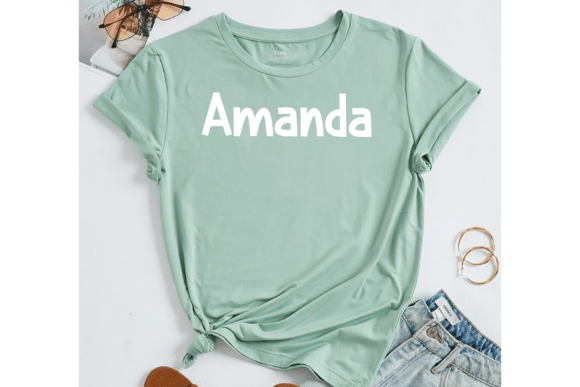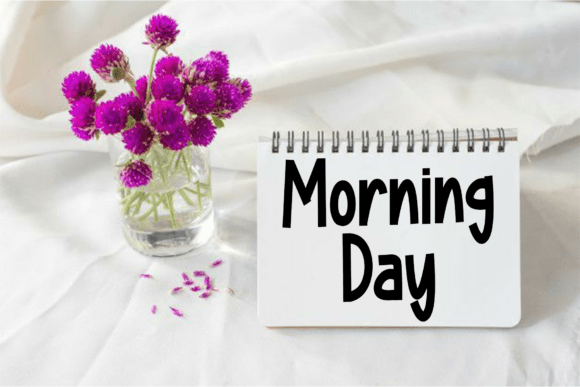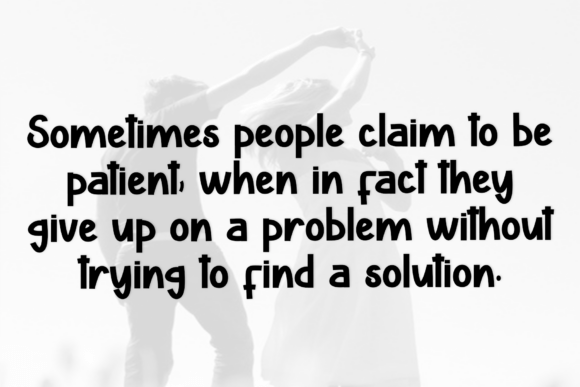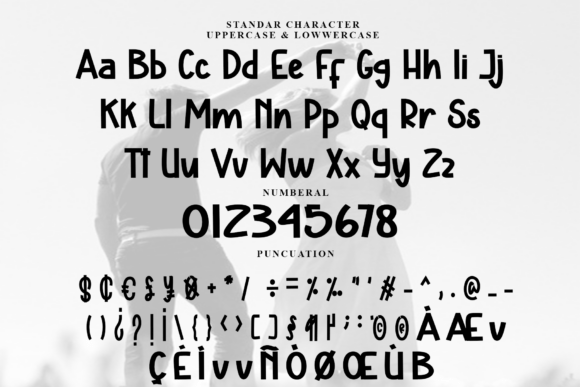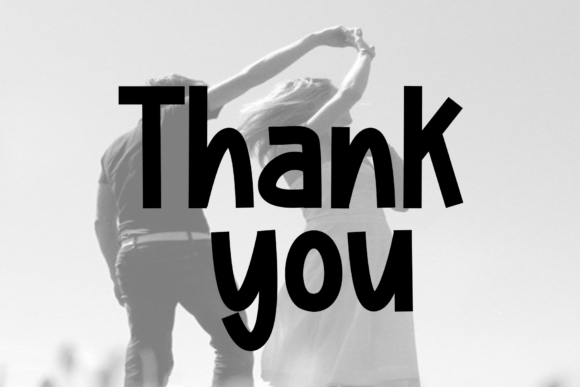
Introduction to Amour Dancing Font
Amour Dancing is a bold and authoritative display font designed with a clean, “modern” hand-drawn silhouette.
The typeface features thick, vertically elongated letterforms with a consistent monolinear weight and soft, rounded terminals Its distinctive personality is defined by unique character geometry, providing an organized yet creative visual flow.
Key Features of Amour Dancing Font